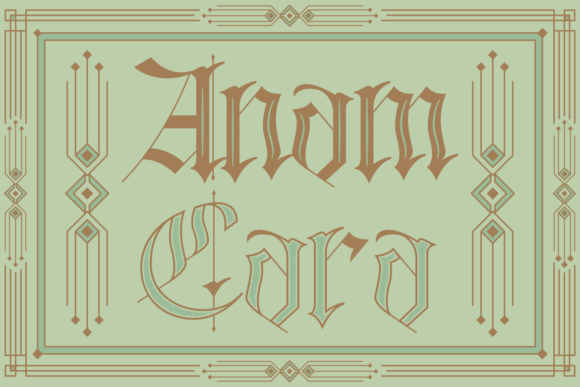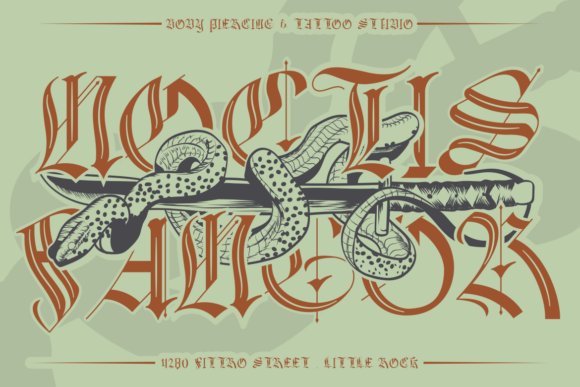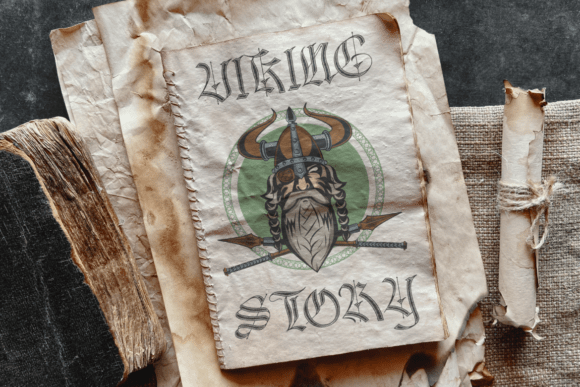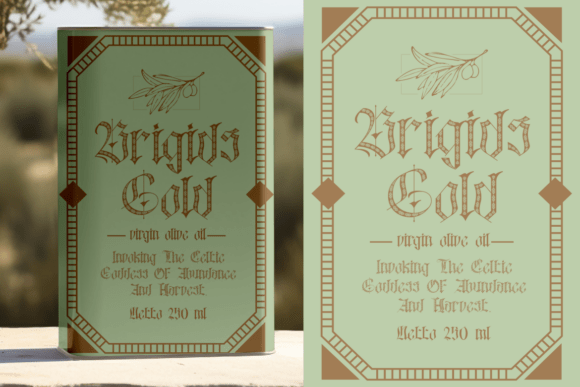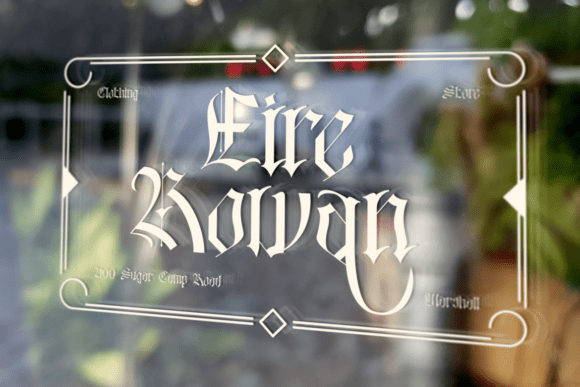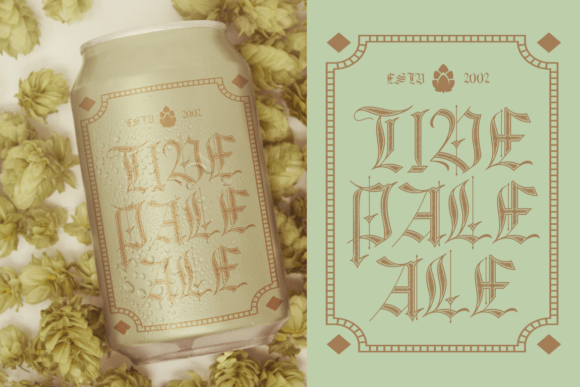
Unleash the Power of Black Eoghan: A Medieval-Inspired Blackletter Font
In the realm of typography, few fonts manage to evoke the mystique of medieval times while exuding a modern edge. Black Eoghan, a meticulously crafted blackletter font, achieves this remarkable balance. Its distinctive gothic structure, ornamental strokes, and Celtic-inspired inlines make it a standout choice for designers and crafters seeking to infuse their projects with an air of ancient elegance and power.
The Distinctive Features of Black Eoghan
Black Eoghan’s design is rooted in traditional blackletter typography, characterized by its dramatic contrast between thick and thin strokes. This creates a visually striking effect that commands attention. The font’s gothic structure is evident in its pointed, angular letterforms, which evoke the architectural grandeur of medieval cathedrals.
What sets Black Eoghan apart, however, is its incorporation of Celtic-inspired inlines and decorative patterns. These elements add a layer of sophistication and visual interest to the font, making it perfect for projects that require a touch of the exotic or the mysterious. The inlines, reminiscent of Celtic tribal markings, imbue the font with a sense of heritage and cultural depth.
Celtic-Inspired Decorative Patterns
One of the most striking features of Black Eoghan is the decorative patterns embedded in some of its glyphs. These patterns reflect Celtic tribal markings, which were traditionally used to adorn illuminated manuscripts, metalwork, and other art forms. The incorporation of these patterns into the font design adds an extra layer of authenticity and cultural significance, making Black Eoghan a compelling choice for projects that aim to evoke a sense of ancient wisdom or mysticism.
Use Cases for Black Eoghan
Black Eoghan’s versatility and visual impact make it suitable for a wide range of applications. Here are a few examples:
- Branded Liquor Labels: Add a touch of sophistication and elegance to your liquor labels with Black Eoghan. The font’s medieval-inspired design and Celtic flair evoke a sense of luxury and refinement, perfect for high-end spirits.
- Tattoo Studio Signage: Make a bold statement with Black Eoghan on your tattoo studio signage. The font’s dramatic, gothic structure and ornamental strokes create a striking visual effect that commands attention and respect.
- Norse-Inspired Book Covers: Transport readers to a world of myth and legend with Black Eoghan on your Norse-inspired book covers. The font’s Celtic-inspired inlines and decorative patterns add a touch of authenticity to your design, perfectly capturing the essence of Norse mythology.
Why Choose Black Eoghan?
Black Eoghan offers a unique combination of medieval elegance and modern edge, making it a compelling choice for designers and crafters seeking to create visually striking projects. Here are a few reasons why you should consider Black Eoghan for your next project:
- Unique Design: Black Eoghan’s distinctive gothic structure, ornamental strokes, and Celtic-inspired inlines make it a standout font that sets your project apart from the rest.
- Versatility: Black Eoghan’s versatility makes it suitable for a wide range of applications, from branding and packaging to book covers and signage.
- Cultural Significance: The font’s incorporation of Celtic tribal markings and decorative patterns adds a layer of cultural depth and authenticity to your design, making it perfect for projects that require a touch of heritage and tradition.
Black Eoghan is a powerful and elegant blackletter font that bridges medieval elegance with modern edge. Its distinctive gothic structure, ornamental strokes, and Celtic-inspired inlines make it a striking choice for designers and crafters seeking to create visually impactful projects. Whether you’re working on a branded liquor label, tattoo studio signage, or Norse-inspired book covers, Black Eoghan commands attention and respect. With its unique design, versatility, and cultural significance, Black Eoghan is the perfect choice for your next project.